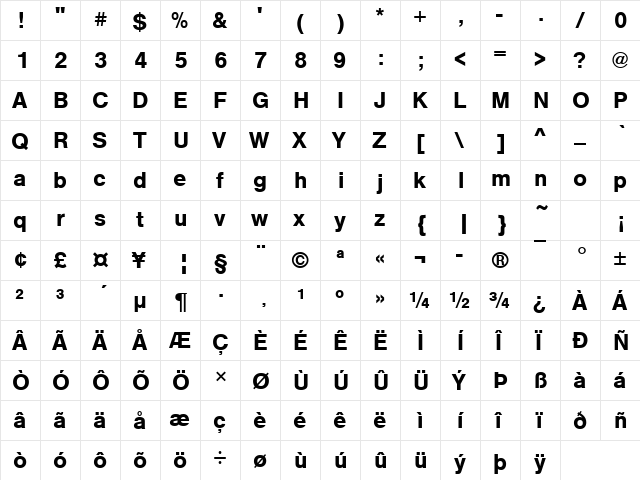
Nimbus Sans Becker T Bold Font Preview
Nimbus Sans Becker T Bold
Design Context for Nimbus Sans Becker T Typeface
Nimbus Sans Becker T is a composed and adaptable typeface that performs quietly and consistently across a wide range of design contexts. Its bold stroke weight gives it real presence on the page.